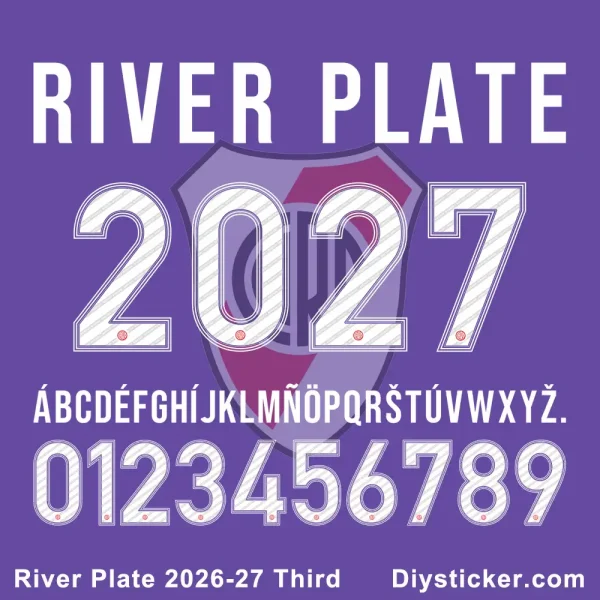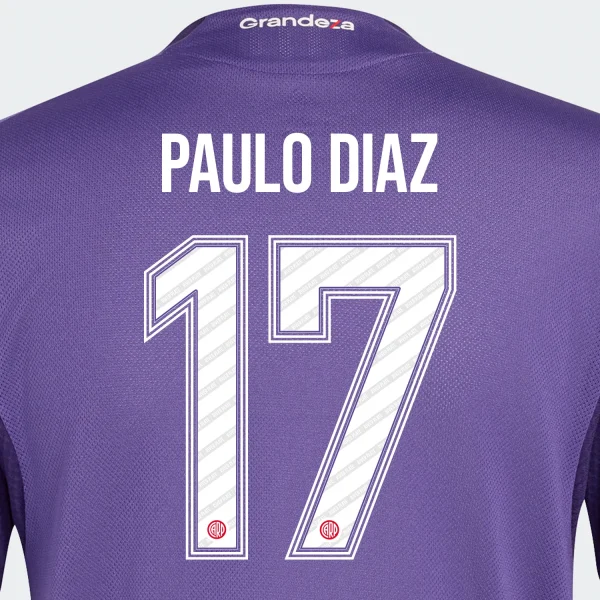
Get the exclusive River Plate 2026-27 Third Font designed for the club’s stunning purple alternative kit. This digital pack includes installable desktop formats (TTF, OTF) and fully scalable professional vectors (AI, CDR, PDF). Features the unique diagonal textured pattern and CARP crest detail. Perfect for fans, kit designers, and vinyl cutting.
Celebrate the elegance of El Más Grande with our meticulously recreated River Plate 2026-27 Third Font. This typeface is specifically modeled after the numbering and lettering used on the club’s 2026-2027 alternative (purple) kits. Whether you are a professional kit maker or a fan preparing a DIY jersey project, this font provides 100% authentic styling.
Premium Quality & Technical Precision Our files are engineered to meet the highest standards of sports apparel production. The numbers feature the iconic internal diagonal line texture, giving them a premium 3D textured look that mimics the authentic player jerseys.